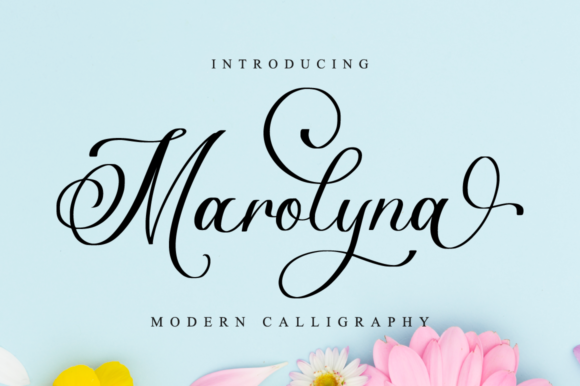
Behold, Marolyna Font, a script font family of unparalleled beauty and versatility, meticulously crafted by NissaStudio to be the ultimate choice for any design project. Marolyna, an exquisite handwritten font, seamlessly blends classic calligraphy with a modern, captivating aesthetic. Its elegantly flowing strokes and intricate swirls evoke a sense of timeless sophistication, while maintaining a refreshing contemporary charm.
Marolyna's versatile nature knows no bounds. Whether you're creating stunning invitations for special occasions, crafting eye-catching logos that leave a lasting impression, or designing captivating social media graphics, Marolyna rises to the challenge effortlessly. Its enchanting allure is bound to leave a lasting impact on your audience, captivating their attention with its timeless elegance.
With Marolyna, you unlock a world of creative possibilities. Personalize your digital designs with a touch of sophistication, adding a personal touch that resonates with your audience. Elevate your branding efforts to new heights, crafting a visual identity that exudes professionalism and creativity. Unleash your imagination and create marketing materials that make a statement, leaving a lasting impression on potential customers.